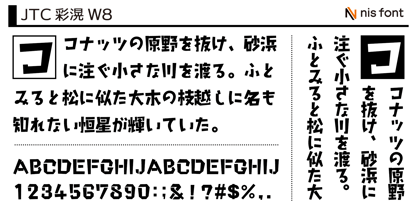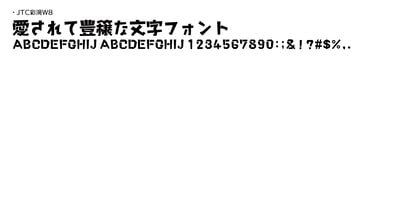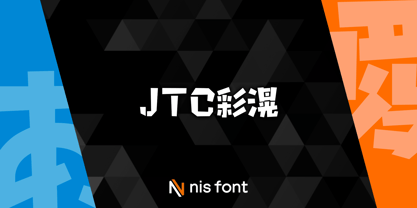
OT-NIS_SAI
by NIS Fonts
The accent on the "harai" stroke is particularly effective in this font. The character set includes kana, kanji, and symbols from JIS Level-1, as well as 94 selected kanji from JIS Level-2. Additionally, the alphabets from JIS Level-1 Section 03 include uppercase letters only. Supports the JIS2004 character set.